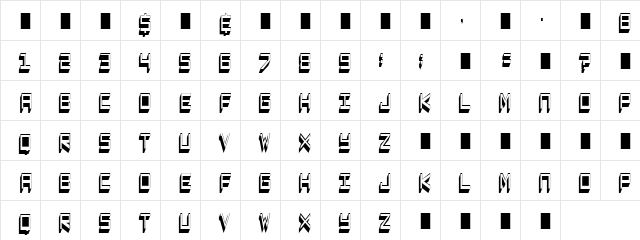
Captain Lethargic Regular
Design Context for Captain Lethargic
Captain Lethargic is a composed and adaptable typeface that performs quietly and consistently across a wide range of design contexts.
Pro Tip: Use Captain Lethargic in both headline and body roles to test its range before committing to a single application.